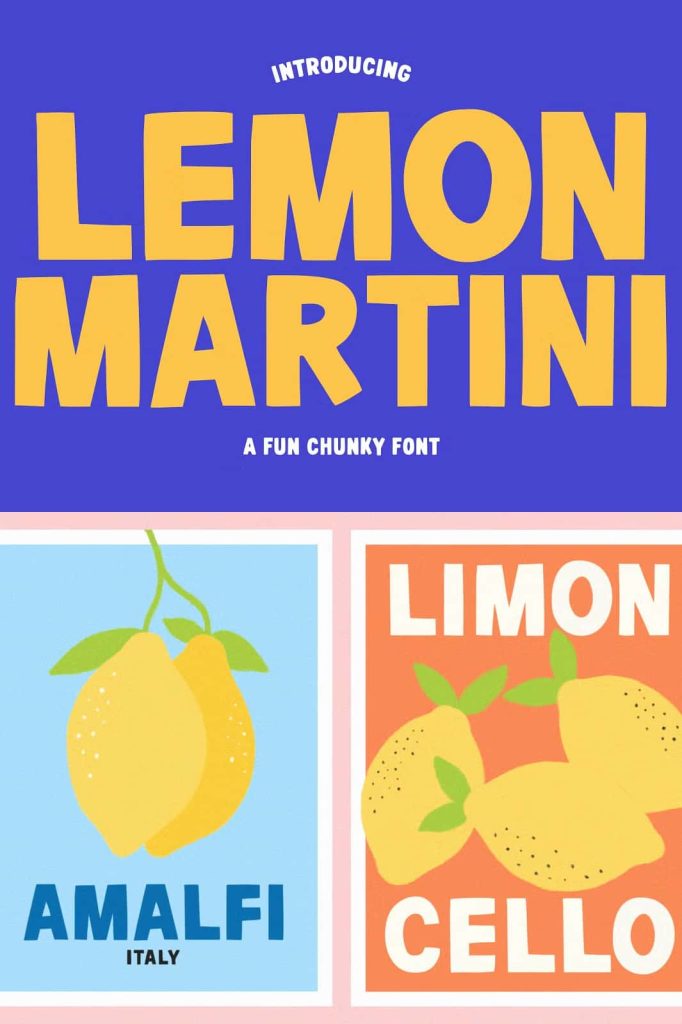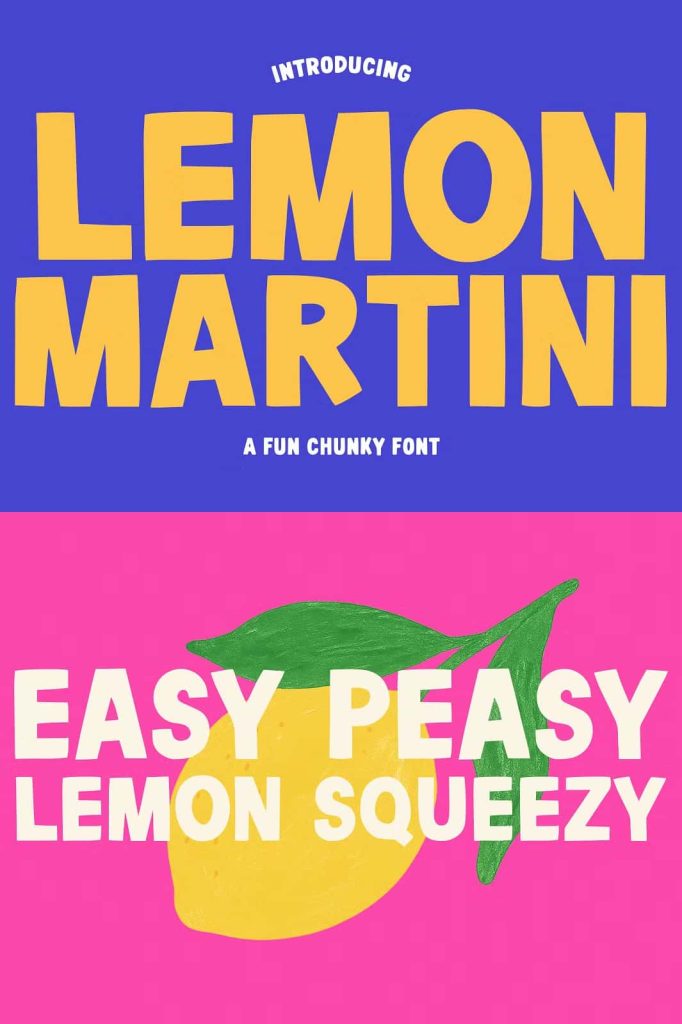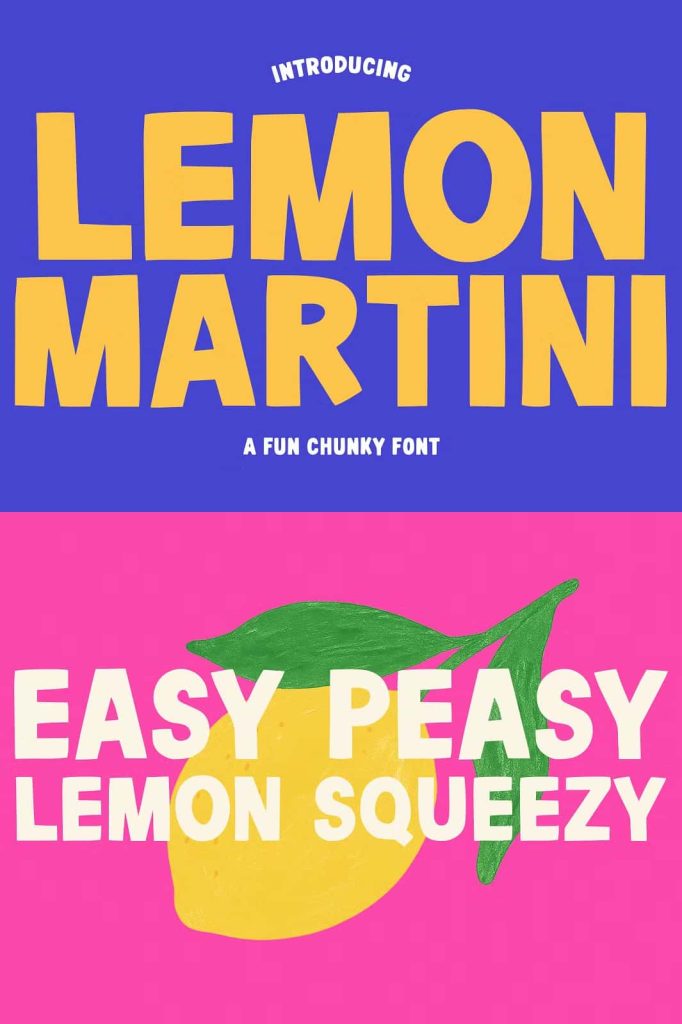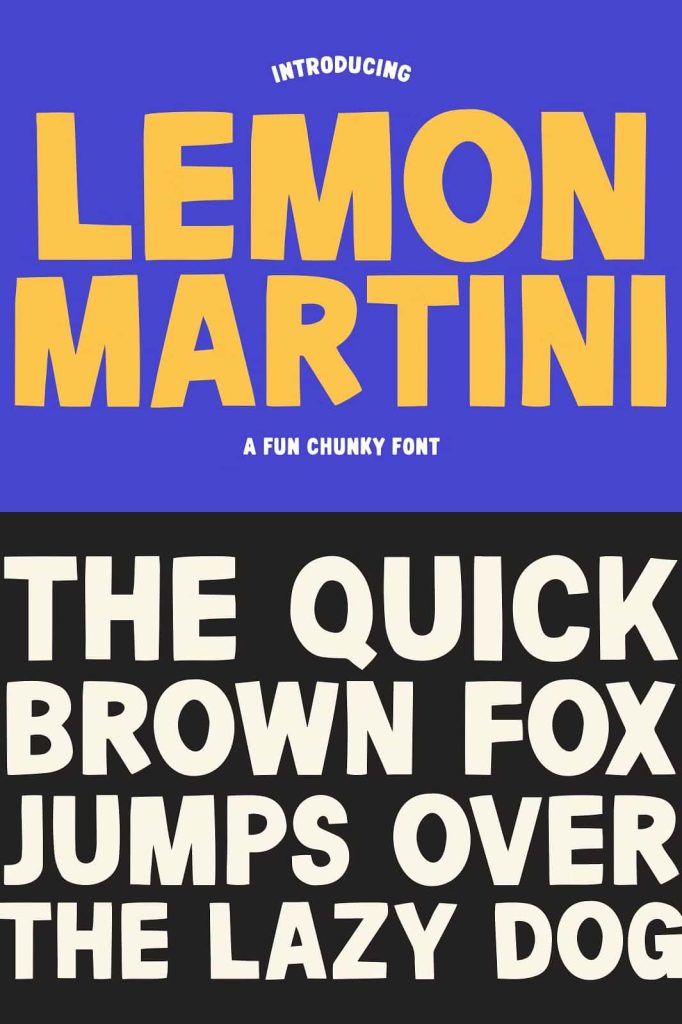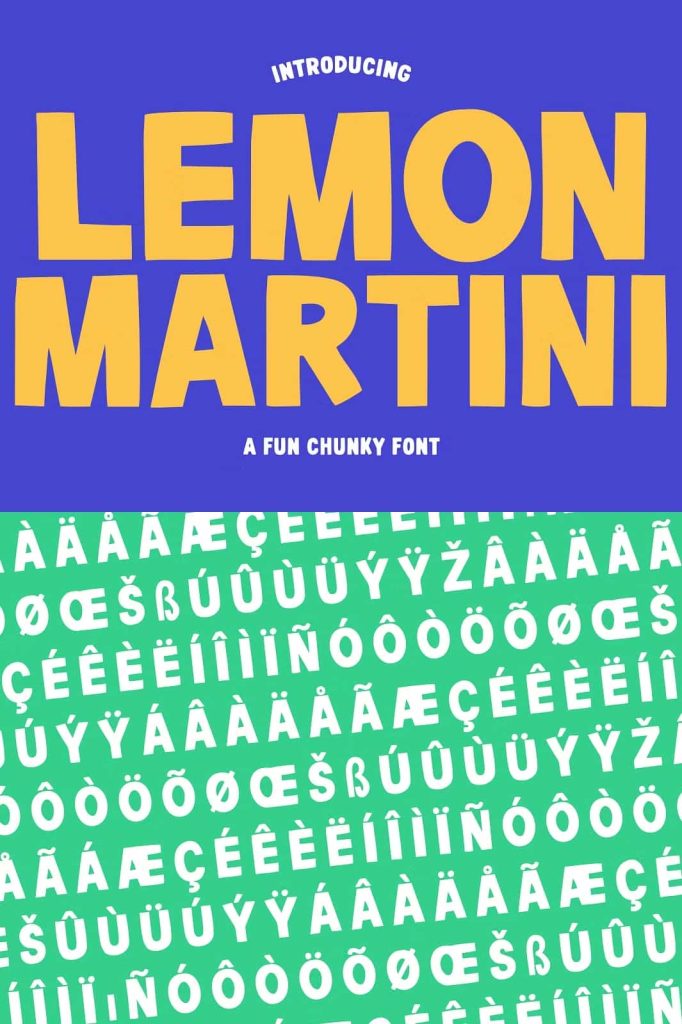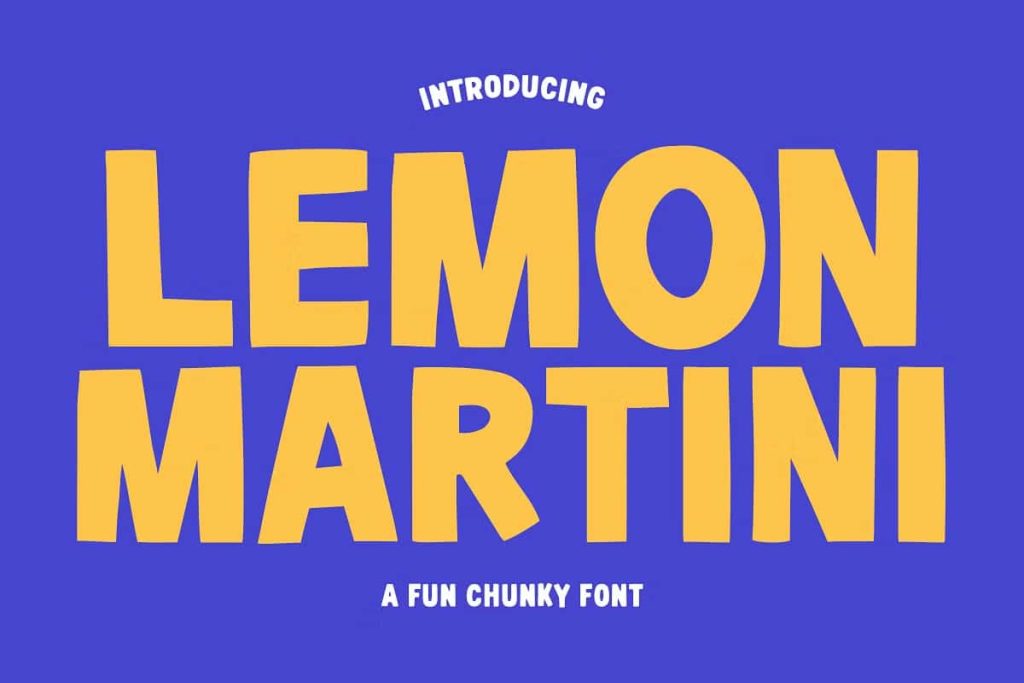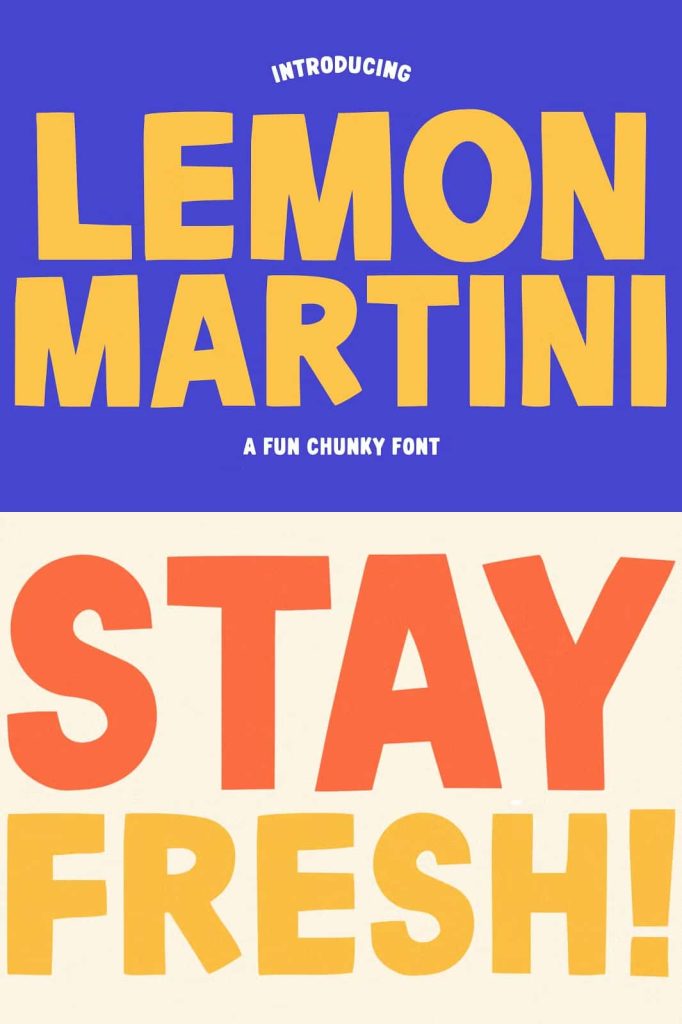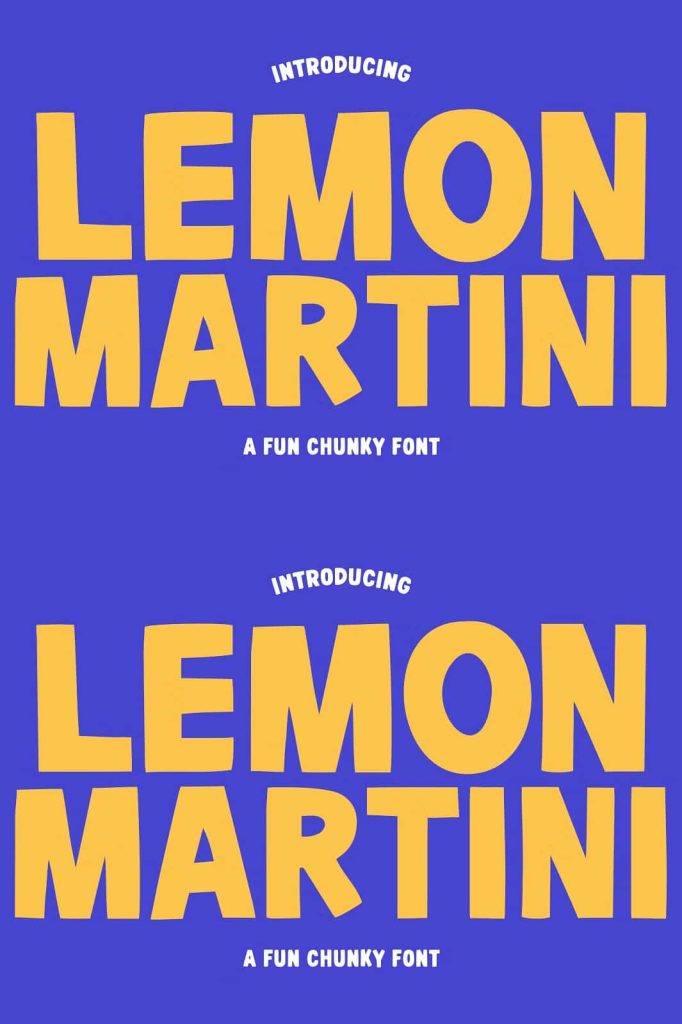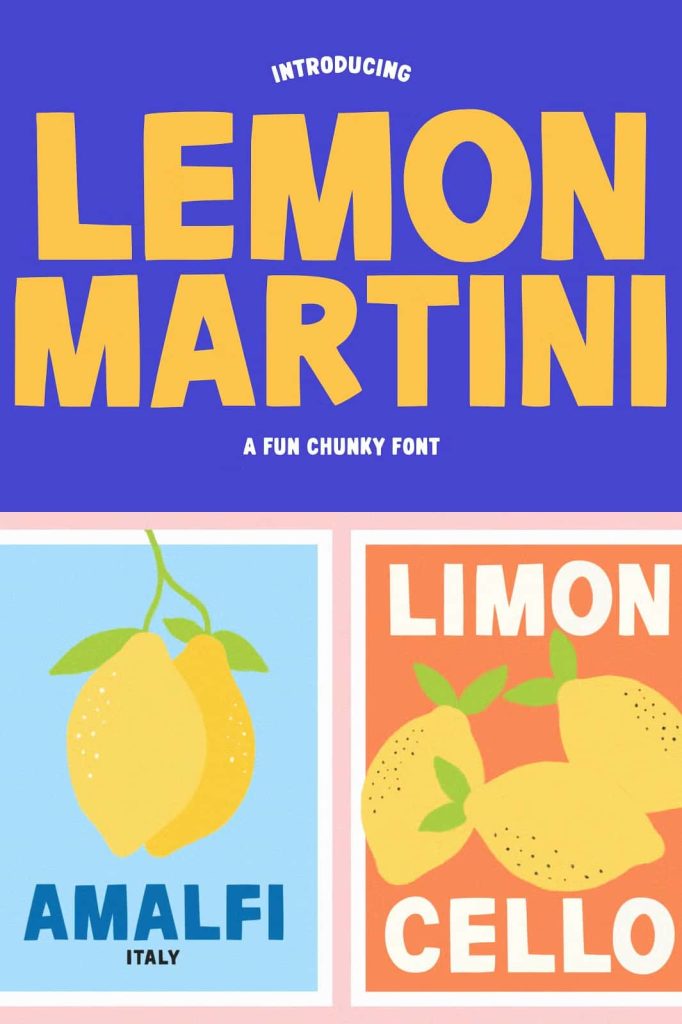
Lemon Martini Bold Typeface – Fun, Chunky, and Creative Display Font
Lemon Martini is a playful and chunky bold typeface designed to bring energy, personality, and creativity to your design projects. With its thick letterforms, eye-catching appearance, and cheerful character, this versatile display font helps designers create memorable visuals that instantly capture attention. Whether you are working on merchandise, branding materials, invitations, or promotional graphics, Lemon Martini delivers a fun and engaging style that makes every project stand out.
Created for designers who want to add a touch of charm and individuality to their work, Lemon Martini combines bold typography with a friendly and approachable aesthetic. Its distinctive appearance makes it ideal for projects targeting a wide audience, from small businesses and entrepreneurs to creative professionals and hobbyists.
Bold Typography with a Playful Personality
Lemon Martini stands out because of its chunky and expressive design. Every character features thick, rounded forms that create a strong visual presence while maintaining excellent readability. The playful nature of the font instantly adds warmth and excitement to designs, helping brands and products establish a friendly connection with their audience.
Unlike traditional typefaces that focus on minimalism, Lemon Martini embraces creativity and fun. Its bold appearance allows designers to make a statement while keeping their message clear and engaging.
Perfect for T-Shirt Design Projects
T-shirt graphics require typography that can attract attention from a distance while maintaining strong visual appeal. Lemon Martini excels in this area thanks to its thick letterforms and energetic personality. The font creates eye-catching slogans, quotes, brand names, and graphic elements that look fantastic on apparel.
Whether you are designing clothing for a fashion brand, online store, event promotion, or personal project, Lemon Martini provides the bold impact needed to make your designs memorable. Its playful style works particularly well for casual fashion, children’s apparel, lifestyle brands, and novelty merchandise.
Create Unique Apparel Graphics
The bold structure of Lemon Martini allows designers to create custom apparel graphics that stand out in both physical and online marketplaces. Its fun personality helps transform simple text into attractive visual elements.
Ideal for Print-on-Demand Products
Designers who sell products through print-on-demand platforms can use Lemon Martini to create distinctive artwork that appeals to customers looking for fun and creative designs.
Excellent for Phone Cases and Merchandise
Modern consumers love personalized accessories that reflect their interests and personality. Lemon Martini works beautifully on phone cases, tote bags, notebooks, stickers, posters, and various merchandise products. Its thick and playful lettering remains highly visible even when applied to smaller surfaces.
The font helps products feel more approachable and entertaining, making it an excellent choice for gift items, custom products, and lifestyle merchandise collections.
Create Memorable Greeting Cards and Invitations
Greeting cards and invitations often rely on typography to establish mood and personality. Lemon Martini brings a cheerful and welcoming atmosphere to these projects through its bold and friendly design. Whether you are creating birthday invitations, holiday cards, baby shower announcements, or party invitations, this font helps communicate excitement and celebration.
The playful character of the typeface makes every message feel more personal and engaging, helping recipients immediately connect with the design.
Perfect for Mug Designs and Gift Products
Custom mugs and gift products continue to be popular across online marketplaces and retail stores. Lemon Martini provides the ideal typography solution for creating memorable quotes, humorous sayings, inspirational messages, and decorative text-based artwork.
Its bold appearance ensures excellent readability on mugs and drinkware while adding a fun and stylish touch that enhances the overall product design.
Versatile for Branding and Marketing Materials
Beyond merchandise and gifts, Lemon Martini also performs exceptionally well in branding and promotional design. Businesses can use the font for logos, packaging, social media graphics, advertising campaigns, posters, and marketing materials that require a playful and approachable tone.
The font’s unique personality helps brands establish a memorable identity while standing out from competitors. It works especially well for businesses focused on creative products, children’s services, entertainment, food brands, handmade goods, and lifestyle products.
Designed for Print and Digital Applications
Lemon Martini adapts seamlessly across both print and digital platforms. Whether you are creating physical products, website graphics, online advertisements, social media content, or digital marketing campaigns, the font maintains its bold appearance and visual impact.
For designers seeking a bold display font that adds excitement and individuality to their projects, Lemon Martini provides a reliable and engaging solution. Its friendly appearance and strong visual presence help transform ordinary text into attention-grabbing designs that leave a lasting impression on audiences across both print and digital platforms.